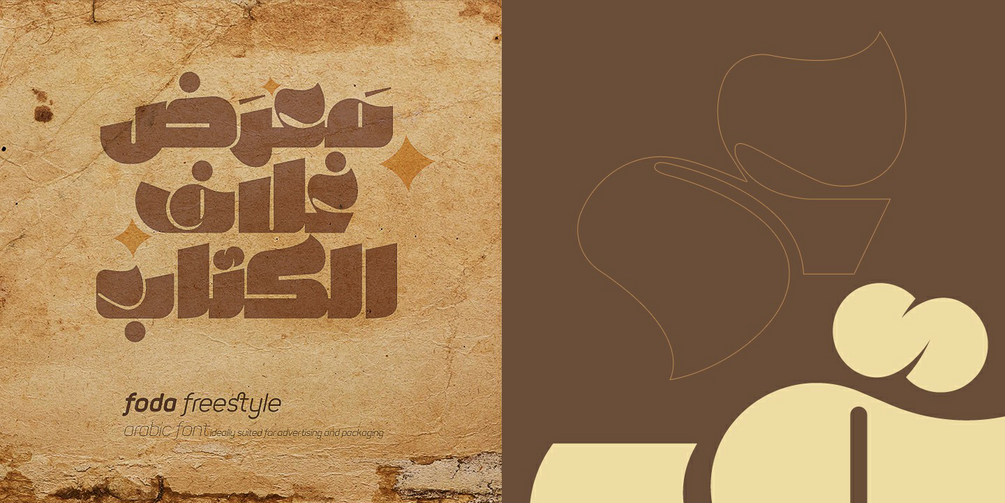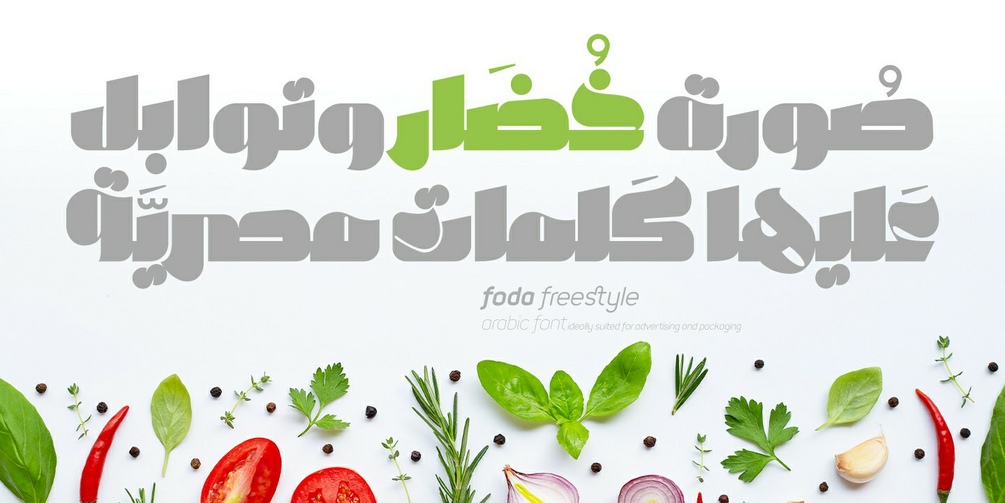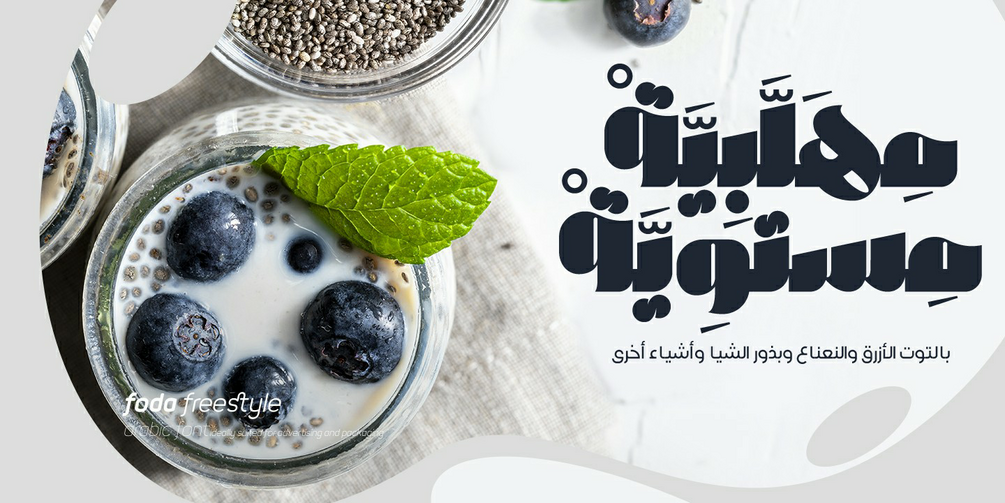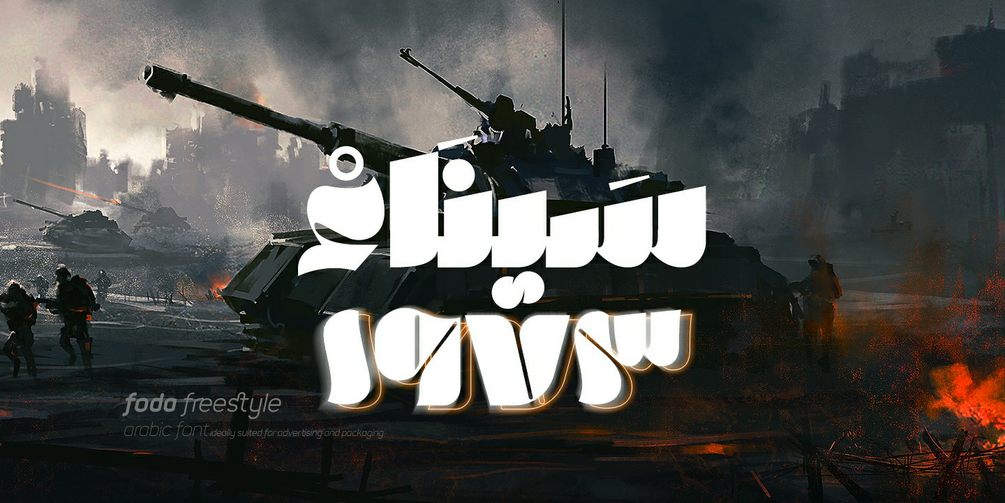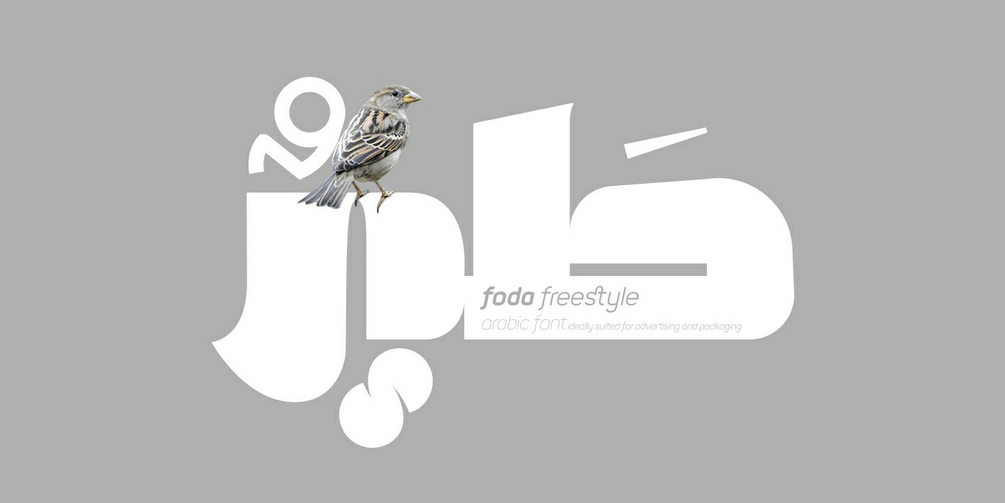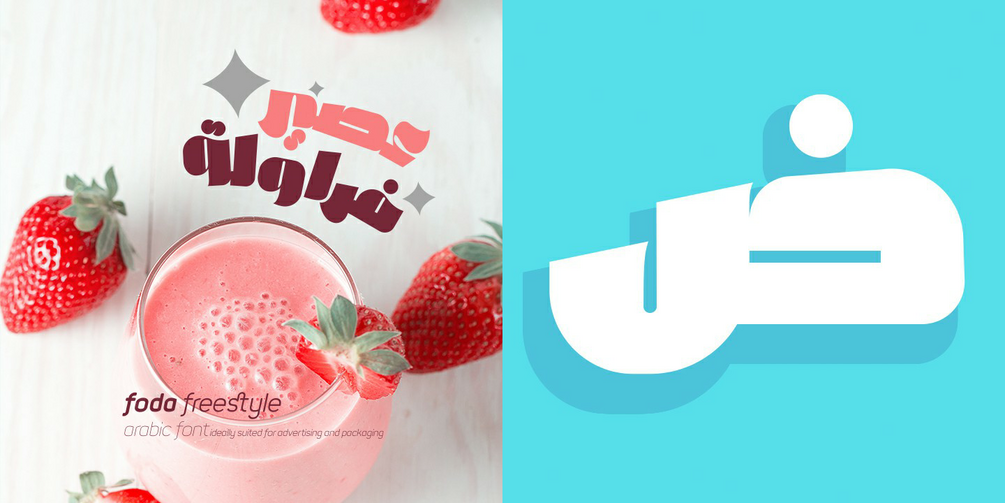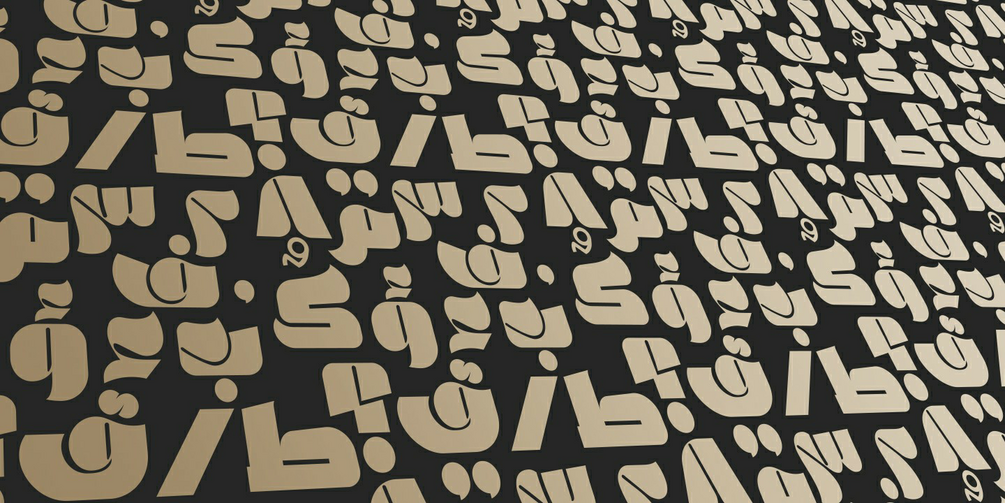
Foda Freestyle Font
Foda Foundry
Foda FreeStyle is a display Arabic font with High contrast that will surly get your attention, comes in single weight. It can be used for headlines, sub heads, posters, advertising and other many purposes.